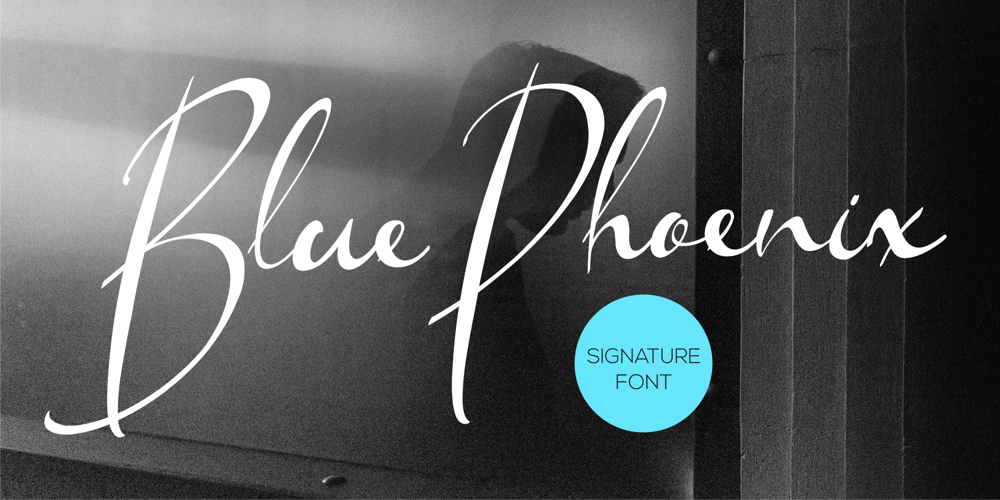
Blue Phoenix
Blue Phoenix font
Blue Phoenix Font Family was designed by Hunaiza Aljahsy and published by HunaizaAljahsy. Blue Phoenix contains 1 styles and family package options. Introducing Blue Phoenix FontBlue Phoenix is sweet handwritten font , come with beauty font, script, serif and included doodles who makes your project will be perfect.Blue Phoenix comes with many alternate character and . Together or separate they are perfect for Invitation, wedding, tshirt design, quotes, mug, bag canvas, greeting cards, branding, stationery design, social media, packaging, prints and many more! If you combine them with the illustrations – you can create even more typographic designs, logos, labels and seasonal cards.